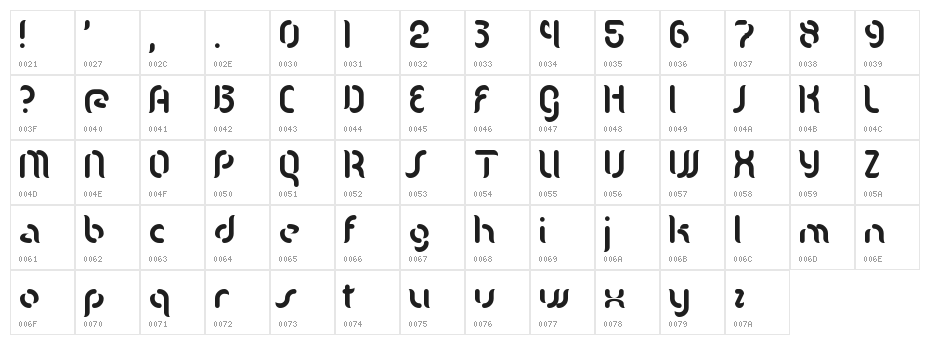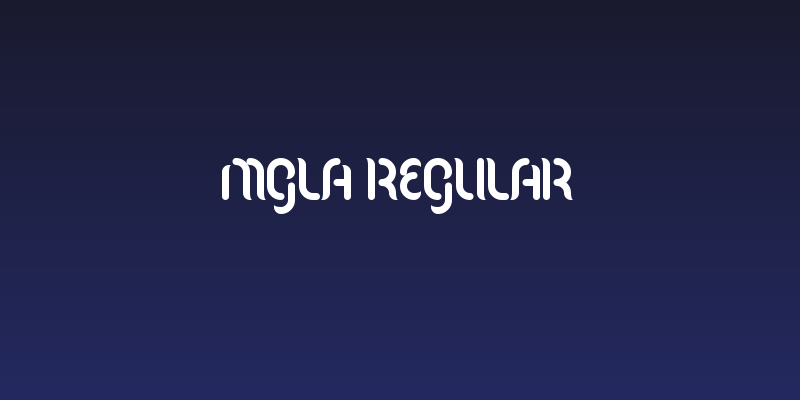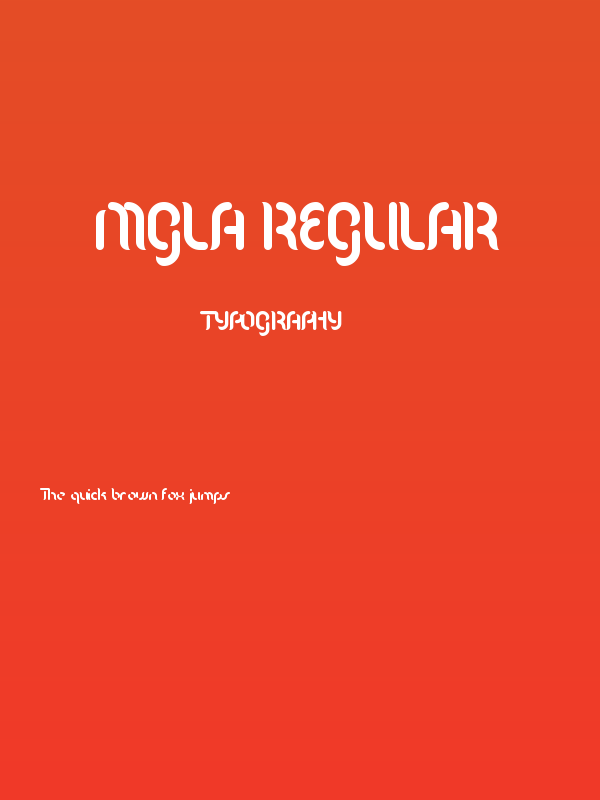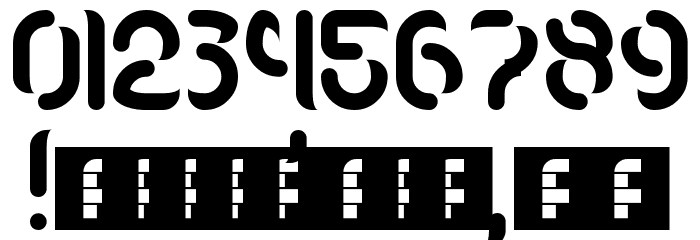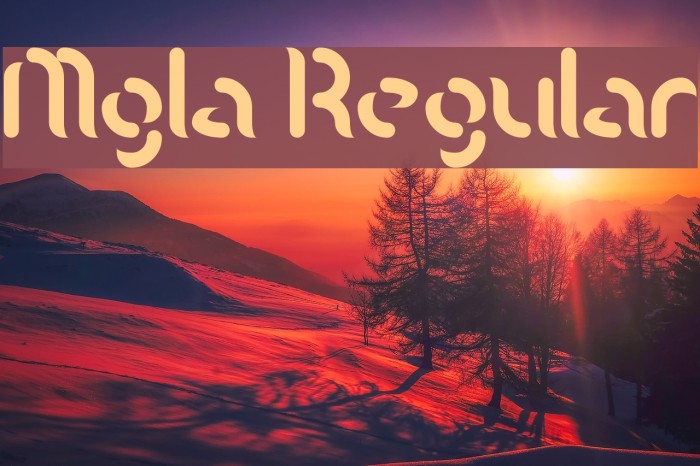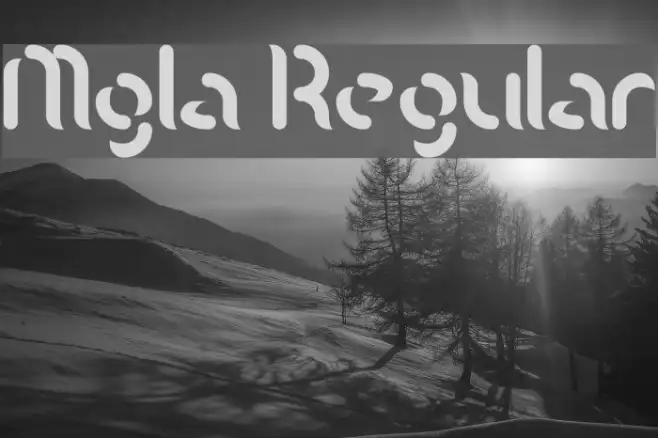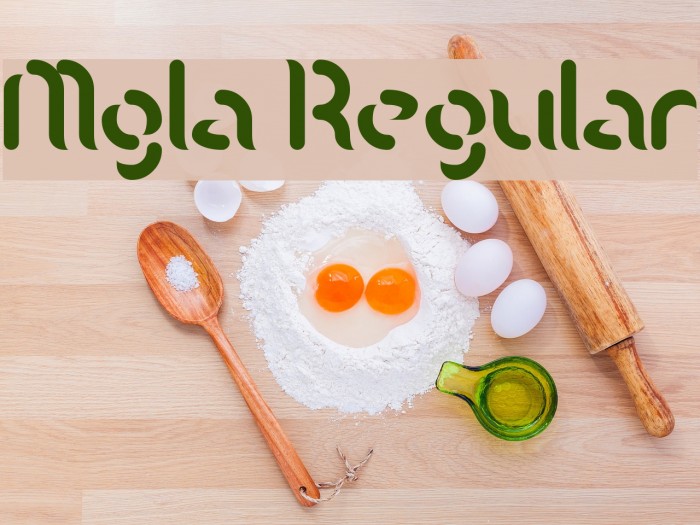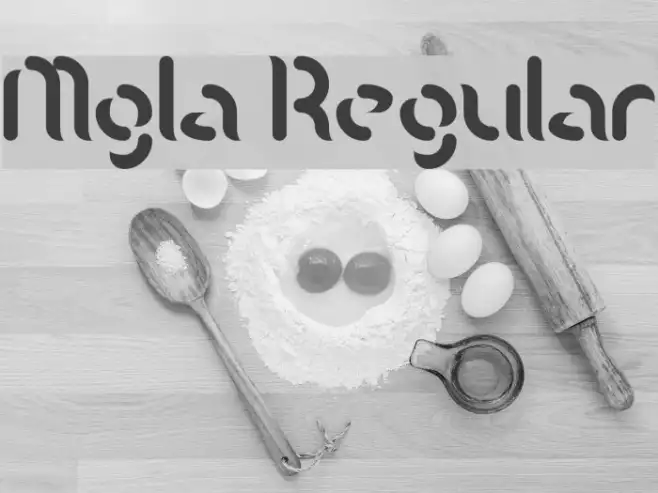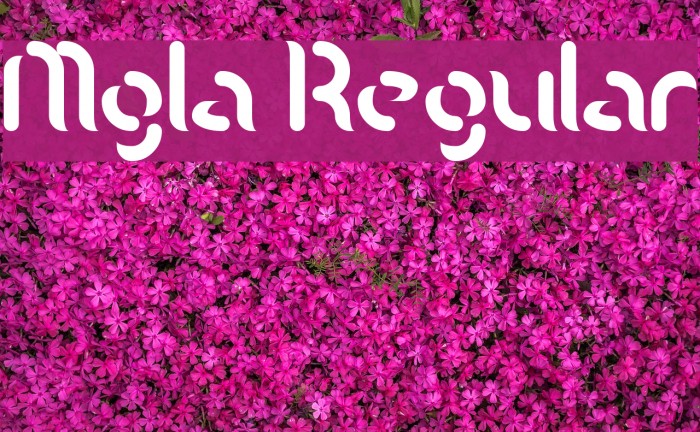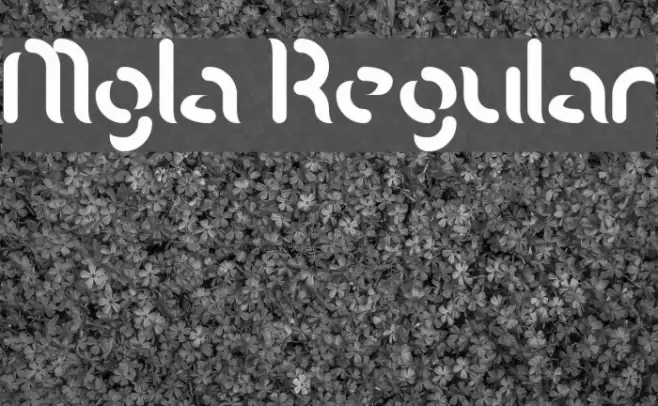
Mgla Regular Font
Mgla Regular Description
This font features a unique and modern design with a futuristic flair. The characters are bold and rounded, with a distinct geometric structure that gives it a contemporary and innovative appearance. The uppercase and lowercase letters maintain a consistent style, with smooth curves and a uniform thickness throughout. The numbers and special characters are equally stylized, ensuring a cohesive look across all elements. The font's design is both eye-catching and versatile, making it suitable for a variety of creative applications.